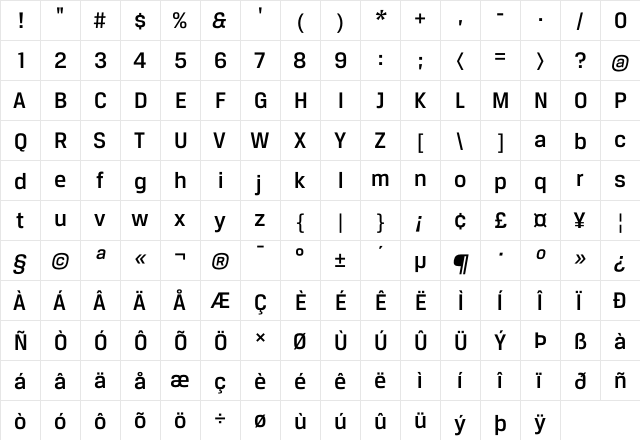
BreuerText Medium
Design Context for BreuerText Typeface
BreuerText is a composed and adaptable typeface that performs quietly and consistently across a wide range of design contexts.